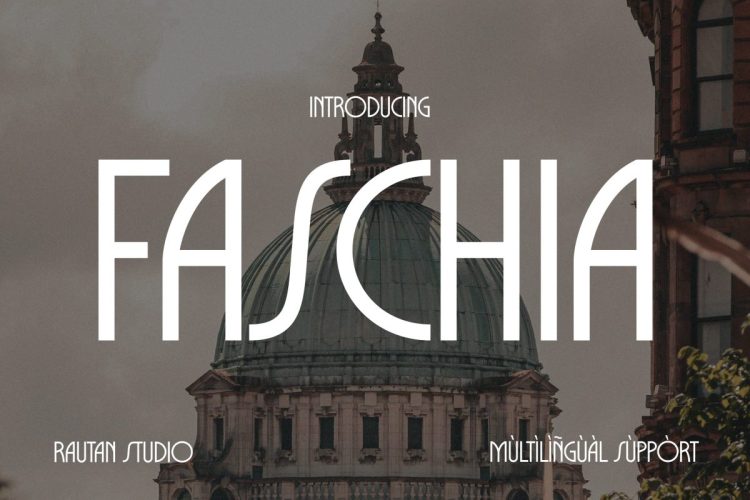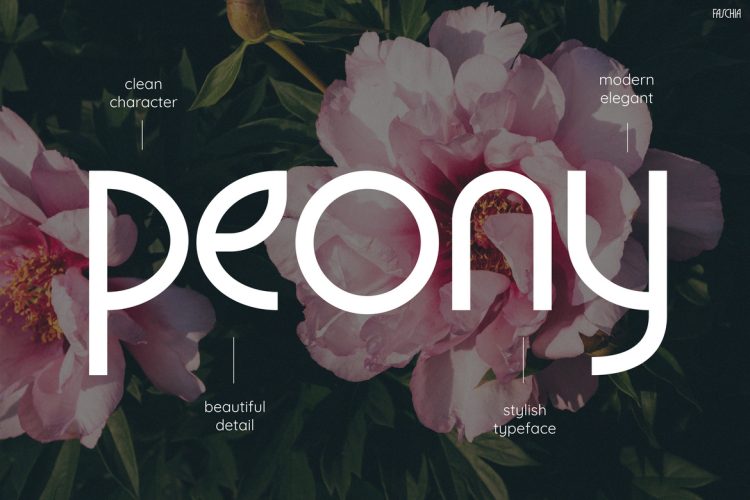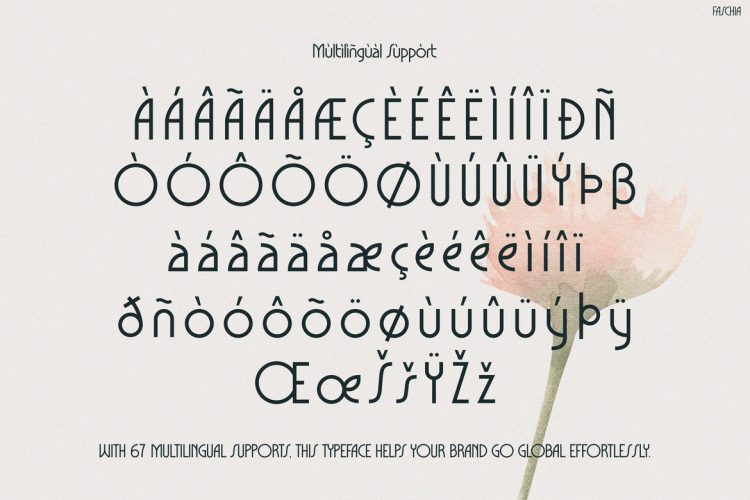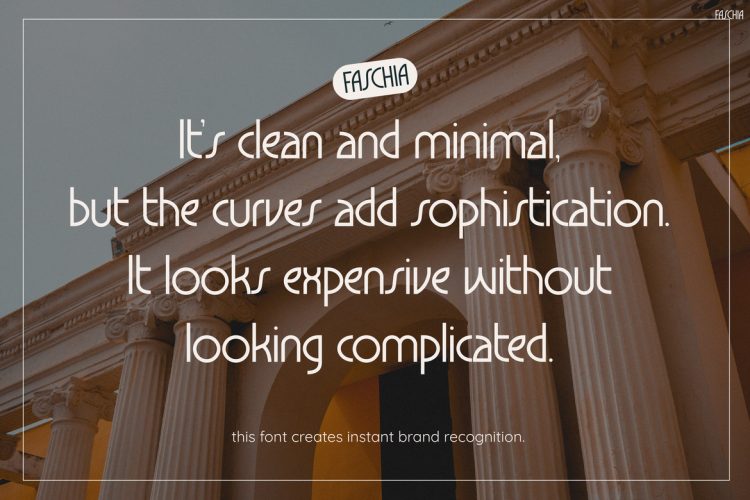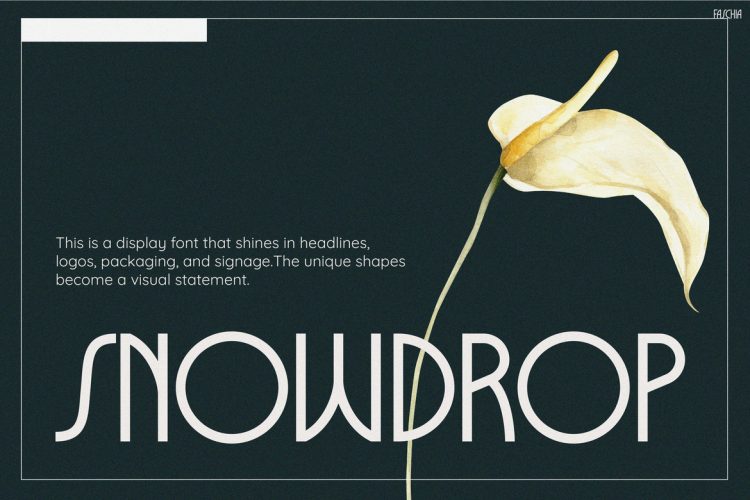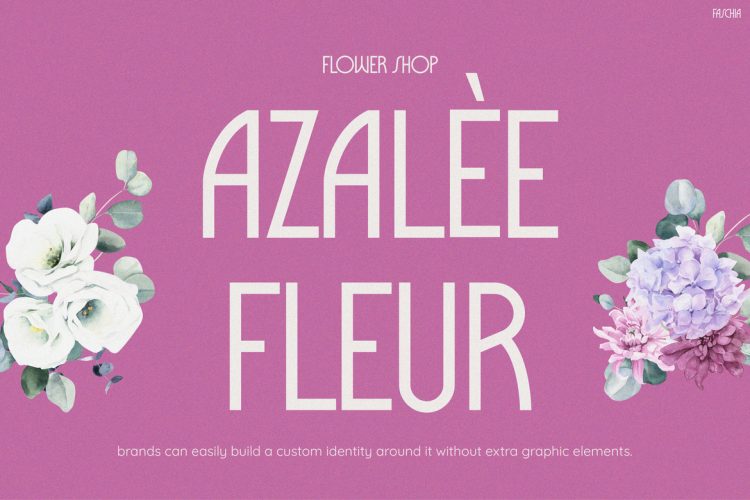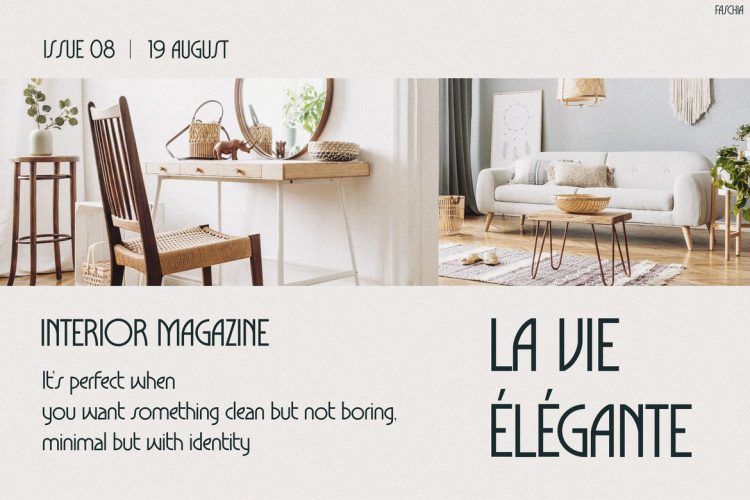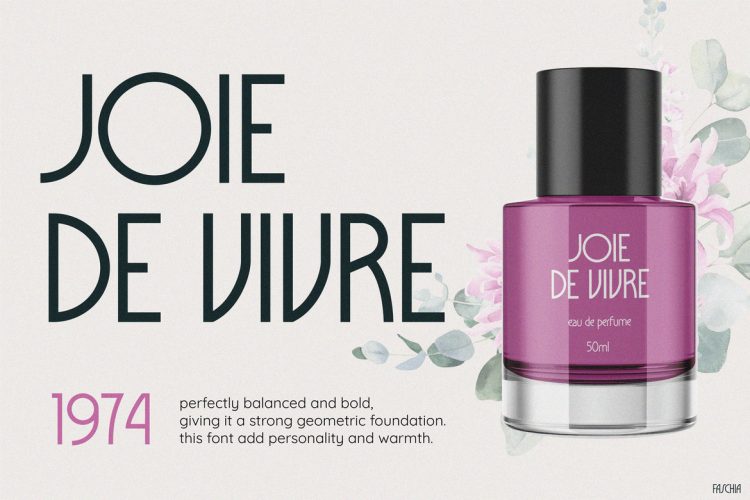
Retro Font Faschia โ Vintage Soul, Modern Elegance
Retro Font Faschia captures the essence of vintage sophistication while presenting it through a clean and modern lens. This display typeface draws inspiration from classic European signage, Art Deco influences, and timeless editorial design. Its tall, slender letterforms create a graceful vertical rhythm, while subtle curves and geometric refinements give each character a distinctive personality. Faschia feels expressive yet controlled, decorative yet minimal. Because of this careful balance, the font commands attention without overwhelming the layout. It delivers strong visual impact in headlines while maintaining clarity and elegance.
The beauty of Faschia lies in its structure. Each letter features refined proportions and thoughtful spacing, which allow words to breathe naturally across the page. As a result, designers can create compositions that look premium, organized, and visually harmonious. Furthermore, the contrast between soft curves and firm strokes enhances its retro identity while keeping it contemporary. Faschia supports 67 languages, enabling brands to communicate consistently across global markets. Whether applied to print materials, digital campaigns, packaging, or social media content, this font maintains its character and readability.
A Refined Typeface with Artistic Personality
Retro Font Faschia performs exceptionally well in projects that require elegance and emotional tone. Its elongated forms elevate logos, headlines, and titles with a subtle sense of drama. Moreover, its minimalist retro approach ensures versatility across different themes, from luxury fashion to interior design. Because Faschia avoids excessive ornamentation, it stays stylish and clean rather than busy. Therefore, designers can rely on it for magazine covers, perfume branding, floral packaging, boutique identities, and curated lifestyle visuals.
Retro Font Faschia Perfect for Creative and Premium Brands
Retro Font Faschia suits fashion labels, beauty brands, florists, cafรฉs, wedding planners, interior designers, and boutique businesses that seek a vintage yet refined look. Additionally, graphic designers and creative studios can use it for editorial layouts, brand identities, packaging systems, and promotional campaigns. Influencers and lifestyle creators can also elevate their Instagram content with its elegant and aesthetic tone.
Elevate Your Brand with Timeless Character
Retro Font Faschia transforms simple words into artistic statements filled with charm and sophistication. If you want a typeface that blends vintage inspiration with modern clarityโand supports global languagesโFaschia is a powerful addition to your design toolkit. Invest in elegance. Design with confidence. Let Faschia define your visual story.